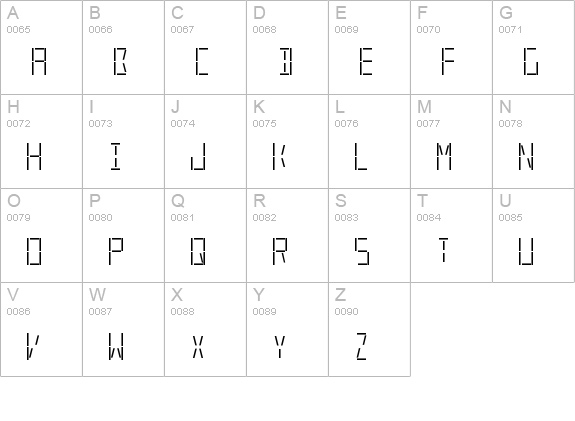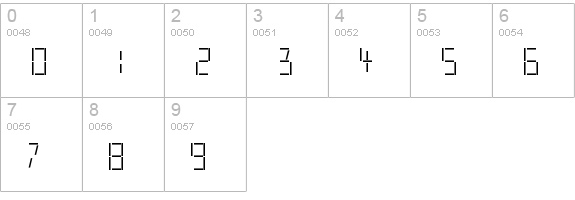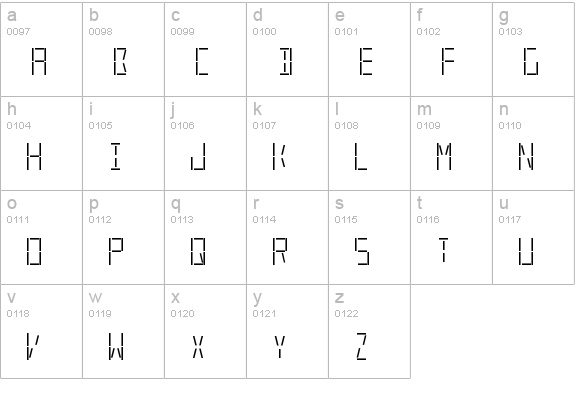
LED Real Regular Font Details
LED Real Regular is the standard, neutral variant in the LED typeface family \xE2\x80\x94 well suited to general body text, paragraphs, and standard typographic work.
LED Real Regular font is a sleek and modern typeface that is perfect for a variety of design projects. With its clean lines and bold presence, this font is sure to make a statement. The LED-inspired design adds a unique twist to your text, giving it a futuristic and high-tech feel. Whether you're creating signage, advertisements, or digital displays, LED Real Regular font will captivate your audience and draw attention to your message. Its versatility allows it to be used in both large and small sizes, making it ideal for both headlines and body text. What sets LED Real Regular font apart is that it is freely available to download at FontsMarket.com. This means that you can enhance your designs without having to worry about any additional costs. Simply visit FontsMarket.com, download the font, and start using it in your projects right away. The clean and sharp lines of LED Real Regular font ensure that it remains legible and readable even at small sizes, making it suitable for both print and digital mediums. Its bold and distinctive appearance adds a touch of sophistication and professionalism to any design. With its wide range of glyphs and characters, LED Real Regular font supports multiple languages, allowing you to communicate your message effectively to a global audience. Its modern and high-tech aesthetic is perfect for industries such as technology, advertising, and media. In summary, LED Real Regular font is a free and visually striking typeface that brings a modern and futuristic touch to any design. It is readily available for download at FontsMarket.com, making it a valuable addition to your font collection. Enhance your projects with LED Real Regular font and watch as your designs come to life with a bold and captivating presence.